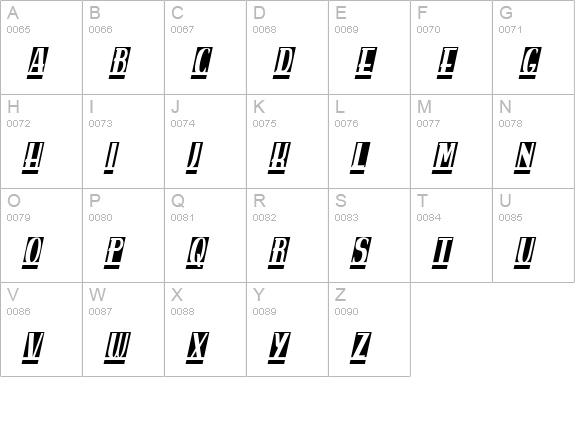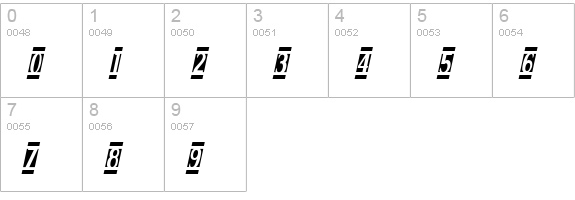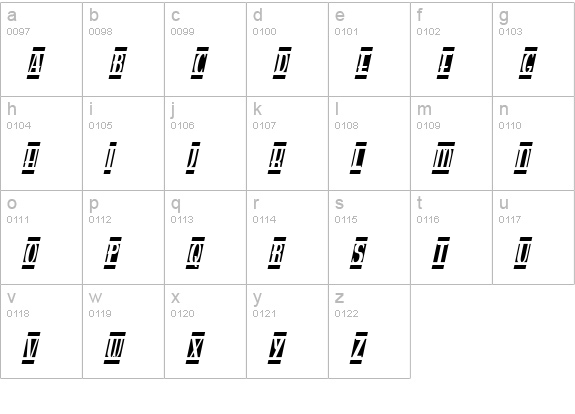
spankys bungalow blanco italico Font Details
Spankys Bungalow Blanco Italico font is a stunning display font that exudes elegance and sophistication. Its unique design combines bold and italic elements, creating a visually striking and eye-catching appearance. The clean lines and distinct curves of this font make it perfect for a wide range of design projects, whether it be for branding, logo design, invitations, or any other creative endeavor. What makes Spankys Bungalow Blanco Italico font even more remarkable is that it is available for free download at FontsMarket.com. This means that you can easily access this beautiful font and utilize it in your projects without having to worry about any additional costs. With its freely available status, this font opens up a world of possibilities for designers and creatives, allowing them to add a touch of elegance to their work without breaking the bank. Whether you're a professional designer or a hobbyist, Spankys Bungalow Blanco Italico font is a must-have in your font collection. Its versatility and timeless appeal make it a valuable asset for any project, and the fact that it is freely available to download at FontsMarket.com only adds to its allure. So go ahead, explore the endless possibilities that this font offers and elevate your designs to a whole new level of sophistication and style.